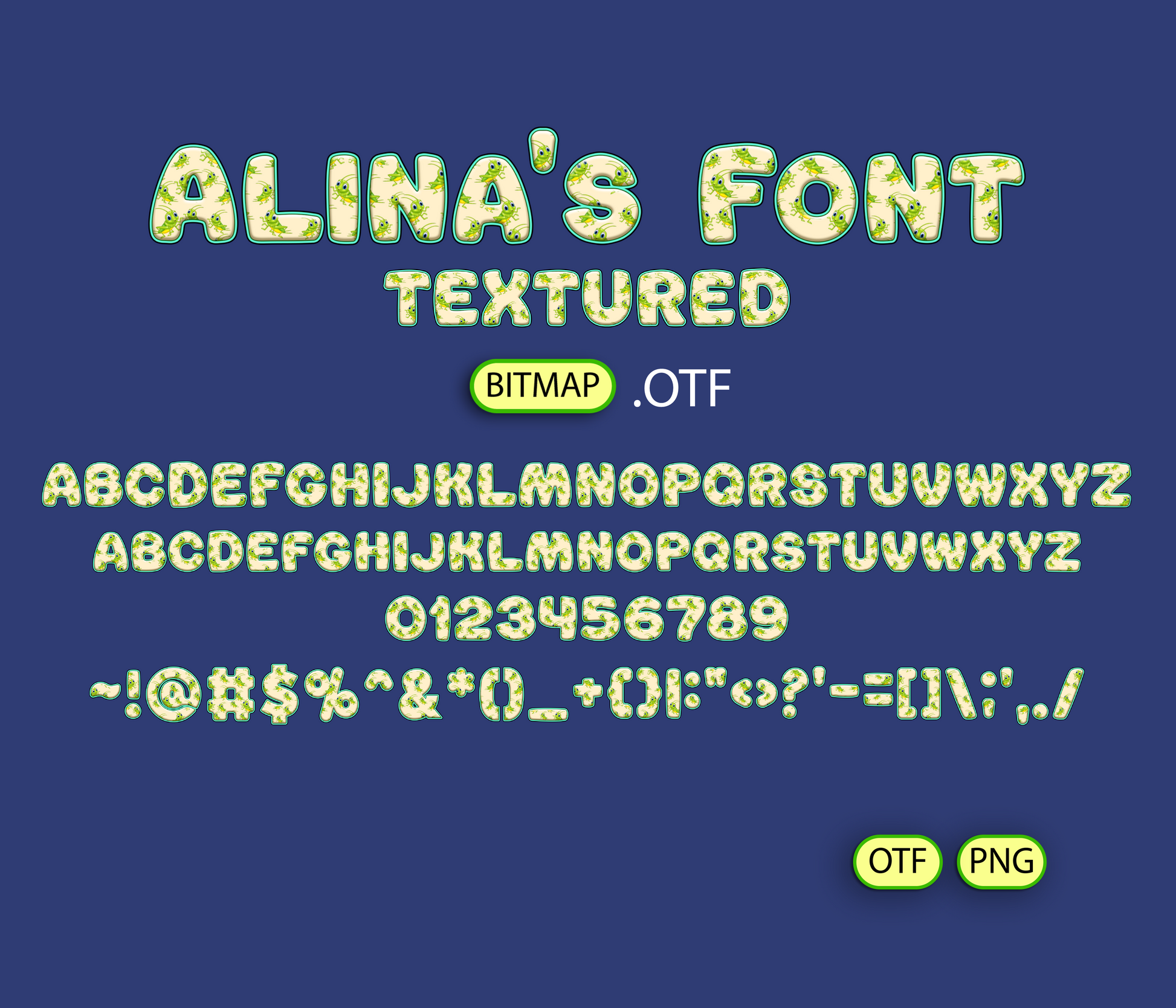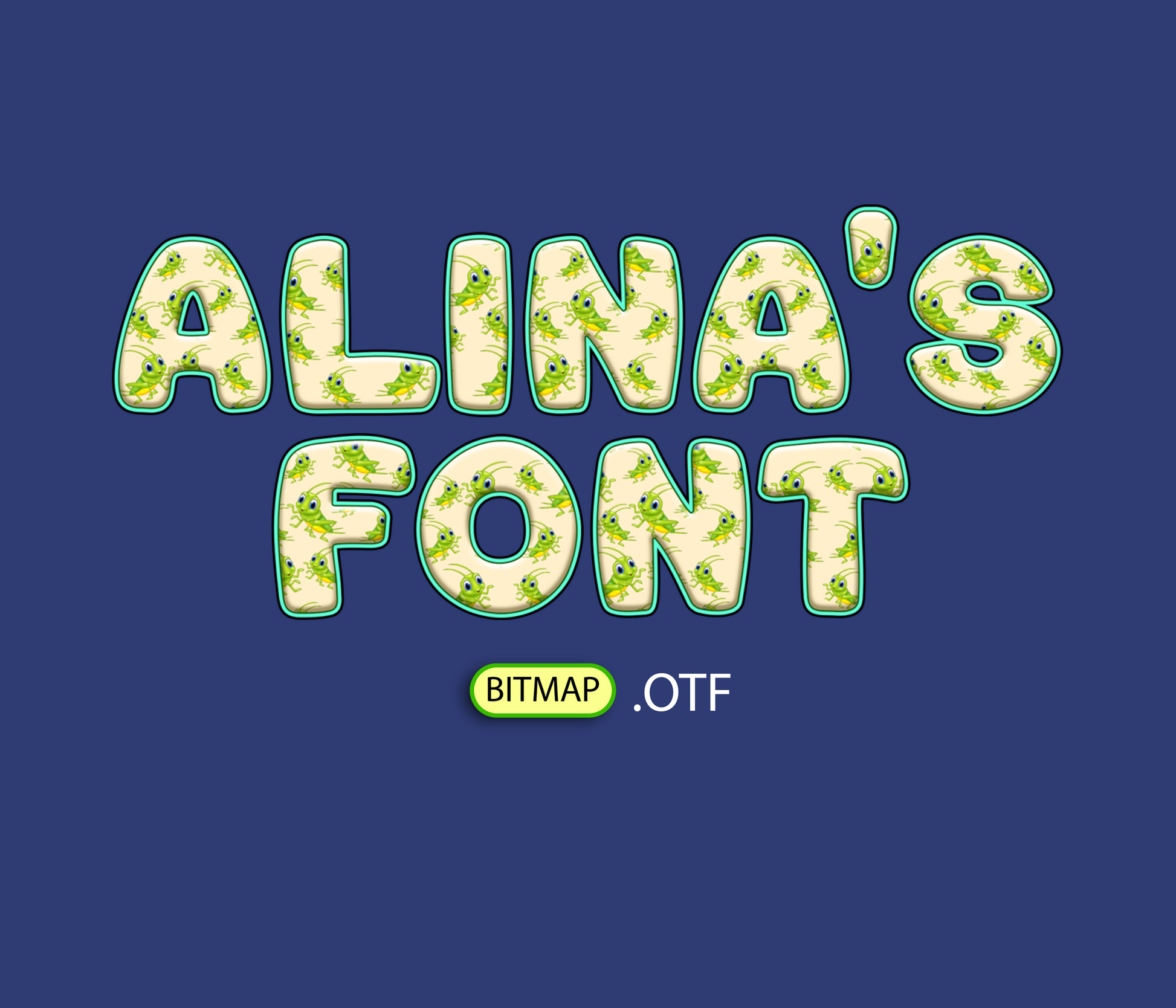
Bugs Pattern Typeface Textured Pollinator Edition
Step into the bustling world of nature's most productive creatures with our Bugs Pattern Typeface, capturing the essence of busy colonies and sweet nectar harvests. Perfect for apiary businesses, eco-friendly brands, children's book illustrators, and creative professionals, this font brings the cheerful, hardworking spirit of flower-visiting insects to your projects. Create delightful signage, nature-themed products, or digital content with the golden, energetic buzz of springtime gardens and blooming meadows.
Our Bugs Pattern Typeface features intricate, insect-inspired textures and whimsical characters reflecting the delicate yet vibrant aesthetic of pollinator communities. Ideal for:
- Nature Business: Create appealing logos, packaging, and promotional materials for honey producers, garden centers, and organic farm stands
- Children's Design: Perfect for educational books, nature-themed party decorations, and learning materials that celebrate environmental awareness
- Digital Media: Enhance websites, blogs, and social media with sunny headers and graphics that express natural joy and productivity
- Educational Content: Add authentic character to science materials, botanical guides, and promotional materials for conservation projects
- Personal Projects: Bring outdoor charm to greeting cards, craft projects, and home decor inspired by the aesthetics of wildflower fields